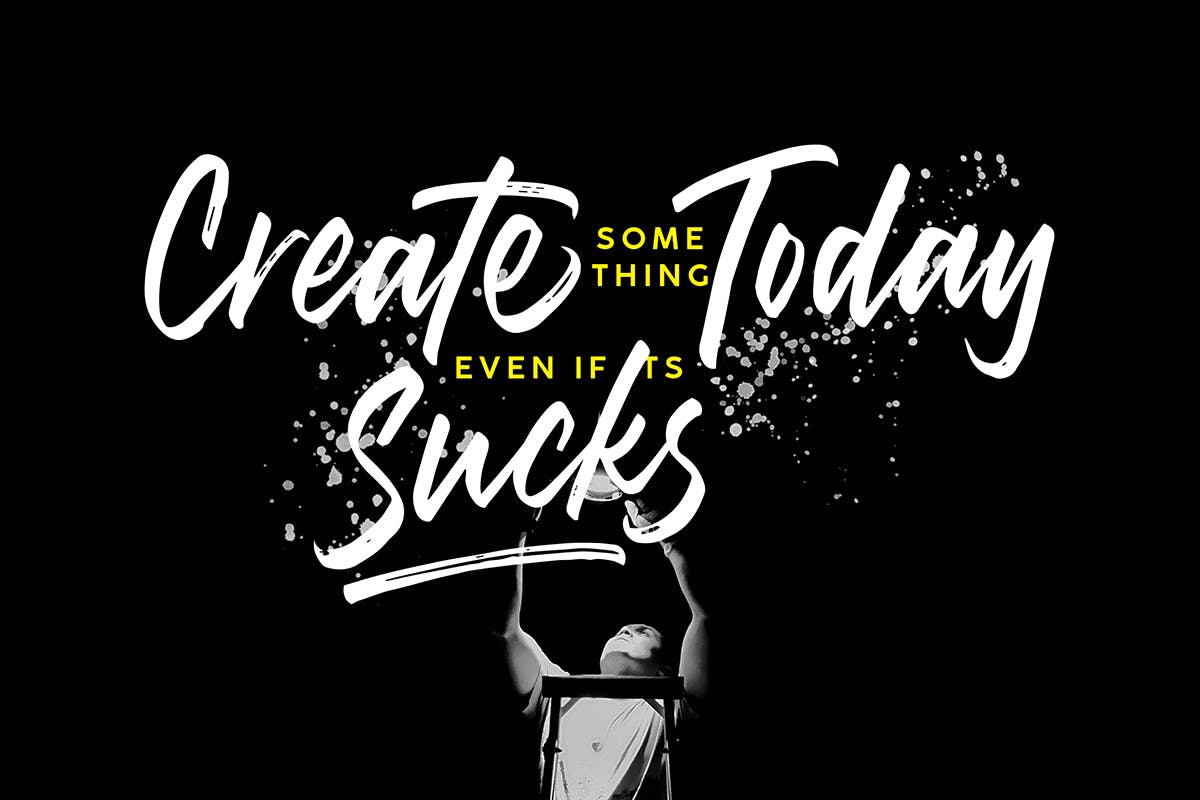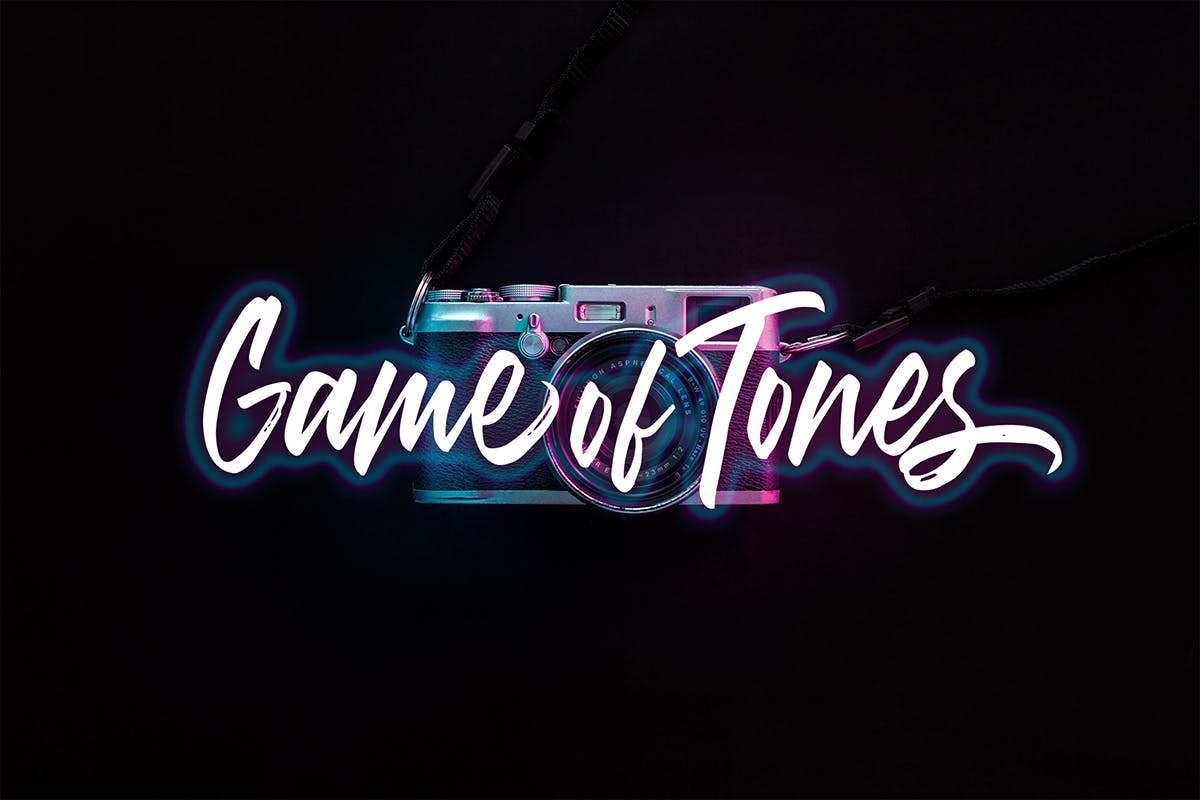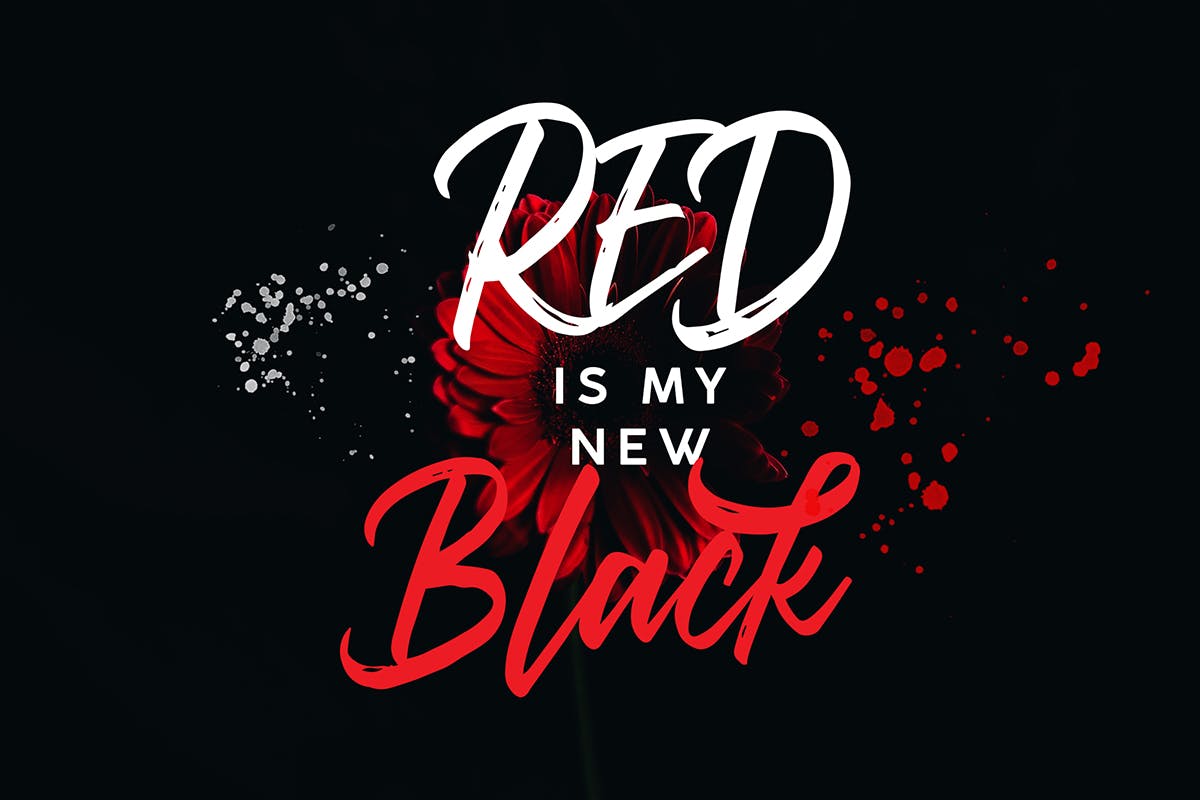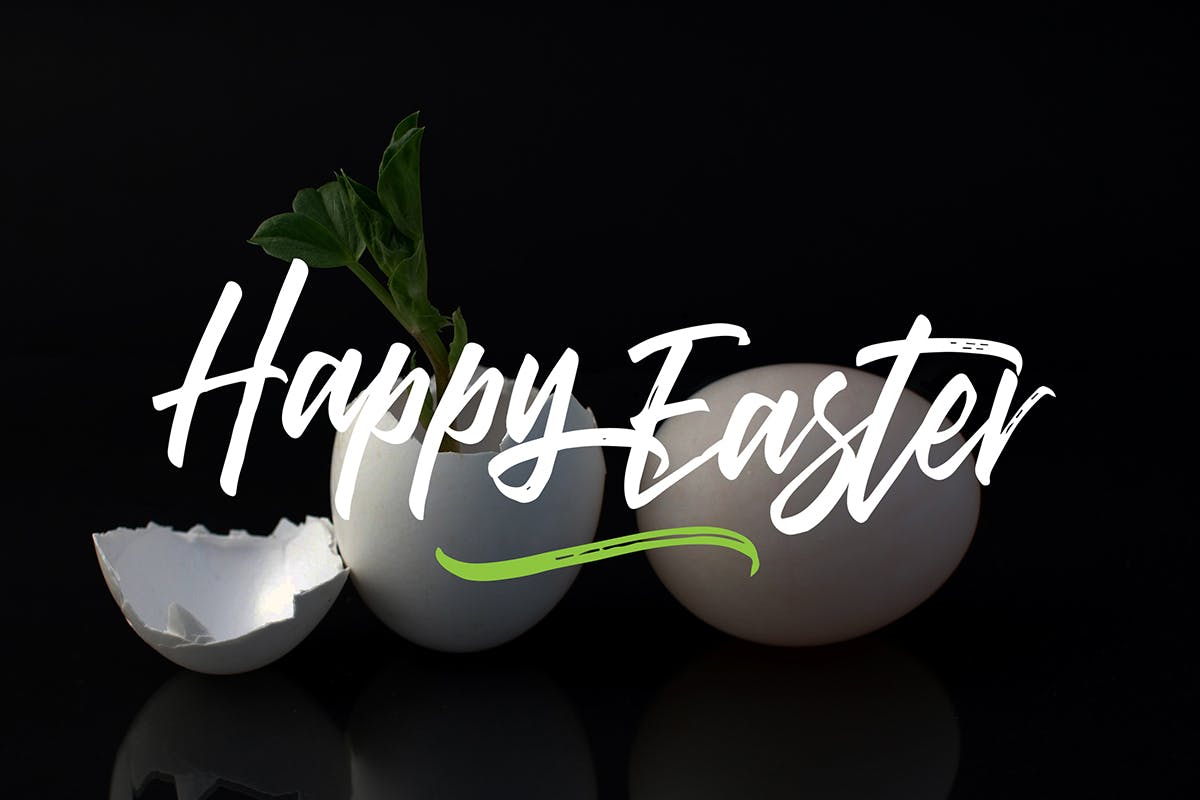
Free Jaeggers Script Font
Free Jaeggers Script Font is a font with an amazing script curve that will make your design looking more professional. Hence, this font can be useful for your projects such as logo design, wedding invitation, gift cards, branding and more. However, this free font is only available for personal license use, thus you only can use it on personal projects.